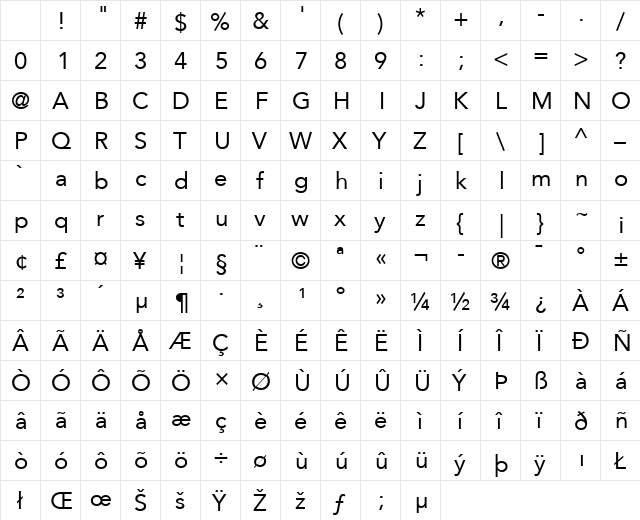
Avenir LT 55 Roman Regular
Design Context for Avenir LT 55 Roman
Avenir LT 55 Roman is a composed and adaptable typeface that performs quietly and consistently across a wide range of design contexts. Its slender proportions lend an understated elegance to any composition.